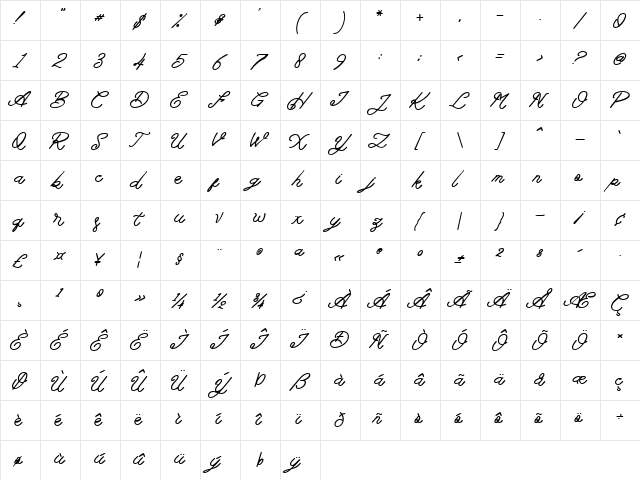
Anthalucya Regular
Design Context for Anthalucya Typeface
Anthalucya is a composed and adaptable typeface that performs quietly and consistently across a wide range of design contexts.